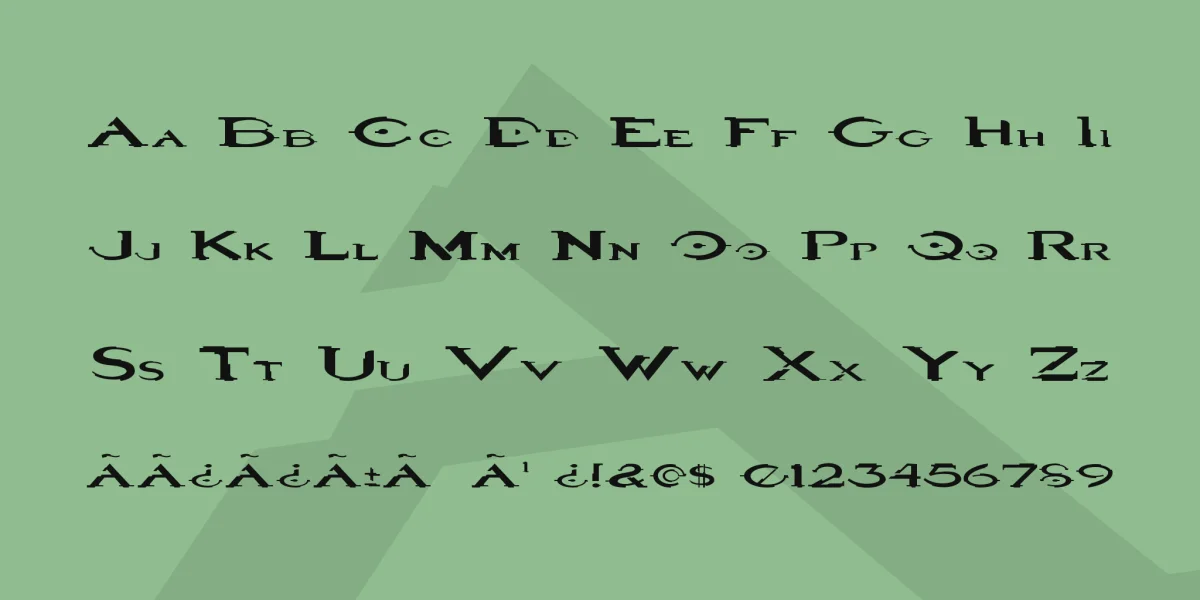
This is an update of the original Halo font. It's been updated to match the logos of Halo 2, Halo 3, Halo Wars and the Halo 2 ad run before release. I've also revised some letters and numbers I never liked. If you have any problems with the font, email me or try my website.